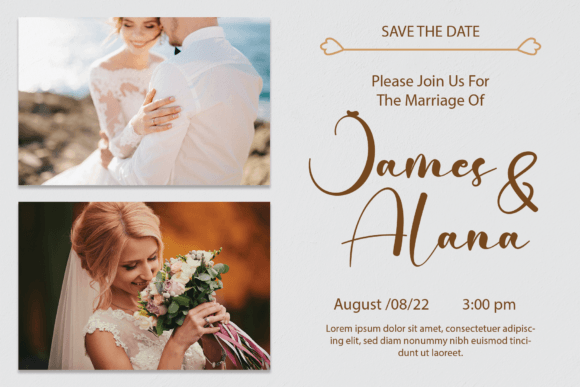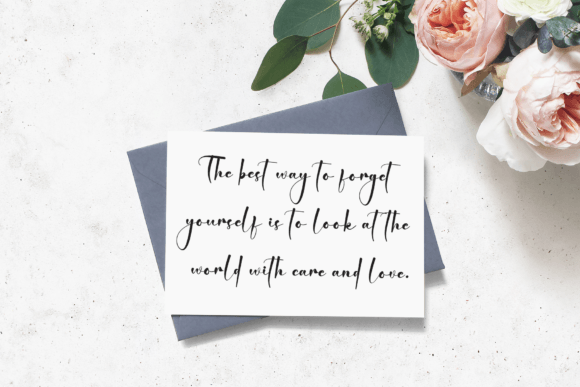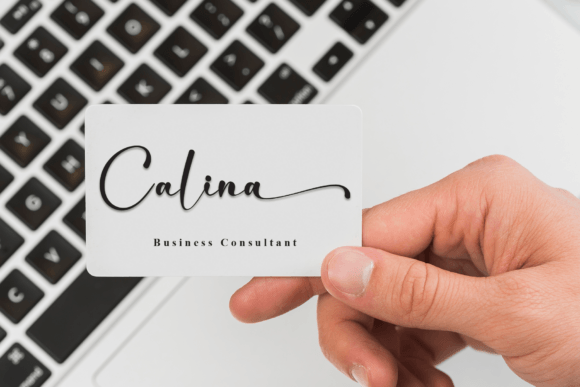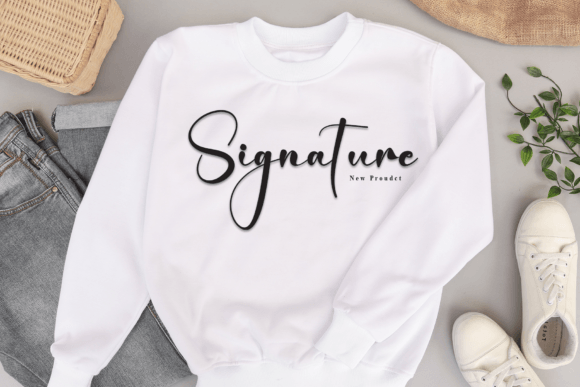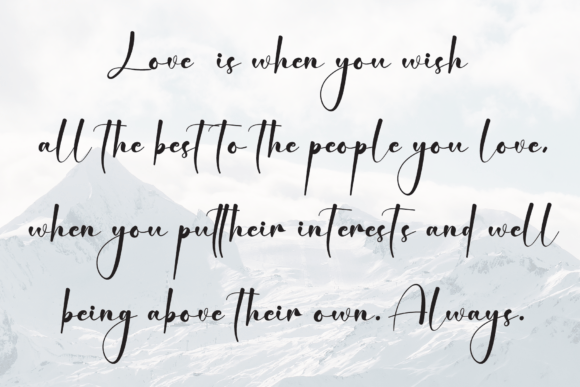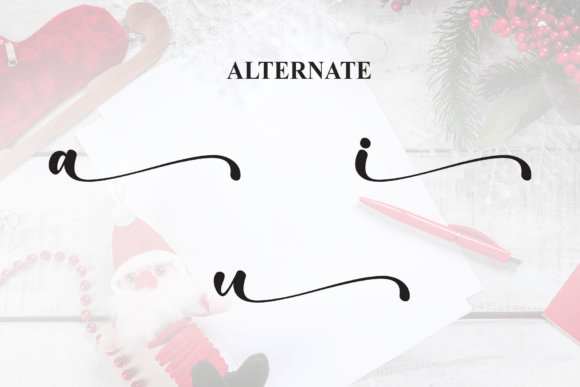
Introducing Dear Santa Font: The Ultimate Elegant Script Font for Designers and Crafters
Are you a designer or crafter looking for a stylish and elegant script font to elevate your designs? Look no further than Dear Santa Font! This beautiful font is perfect for adding a handwritten touch to wedding invitations, thank you cards, quotes, greeting cards, logos, business cards, and more.
What Makes Dear Santa Font So Special?
Dear Santa Font is a stunning script font that exudes elegance and sophistication. Its flowing lines and delicate curves make it perfect for designs that require a touch of whimsy and romance. Whether you’re creating wedding stationery, branding materials, or social media graphics, this font is sure to impress.
Key Features of Dear Santa Font
- Elegant Script Style: Dear Santa Font features a beautiful, cursive script style that’s perfect for adding a touch of elegance to your designs.
- Handwritten Touch: This font has a distinctly handwritten feel that’s perfect for creating unique and personalized designs.
- Versatile: Dear Santa Font can be used for a wide range of design projects, from wedding invitations to business cards, logos, and more.
- Easy to Read: Despite its elegant style, Dear Santa Font is easy to read, making it perfect for use in body text and captions.
Dear Santa Font is a must-have for designers and crafters who want to add a touch of elegance and sophistication to their designs. Whether you’re creating digital or print materials, this font is sure to impress. Here are just a few ways you can use Dear Santa Font:
- Wedding Invitations: Create beautiful, custom wedding invitations that set the tone for the big day.
- Thank You Cards: Add a personal touch to your thank you cards with this elegant script font.
- Logos and Branding: Use Dear Santa Font to create a unique and memorable logo for your business or brand.
- Greeting Cards: Create custom greeting cards for special occasions, such as birthdays, holidays, and anniversaries.
- Social Media Graphics: Add a touch of elegance to your social media graphics with Dear Santa Font.
Tips for Using Dear Santa Font
Here are a few tips for getting the most out of Dear Santa Font:
- Use it Sparingly: While Dear Santa Font is beautiful, it can be overwhelming if used too much. Use it sparingly to add a touch of elegance to your designs.
- Pair it with Other Fonts: Dear Santa Font pairs well with other fonts, such as sans-serif fonts and serif fonts. Experiment with different pairings to find the one that works best for your design.
- Adjust the Size and Color: Adjust the size and color of Dear Santa Font to fit your design needs. This font looks great in a variety of sizes and colors.
Dear Santa Font is a beautiful, elegant script font that’s perfect for designers and crafters who want to add a touch of sophistication to their designs. With its flowing lines, delicate curves, and handwritten feel, this font is sure to impress. Whether you’re creating wedding invitations, logos, or social media graphics, Dear Santa Font is a must-have font that’s sure to elevate your designs.